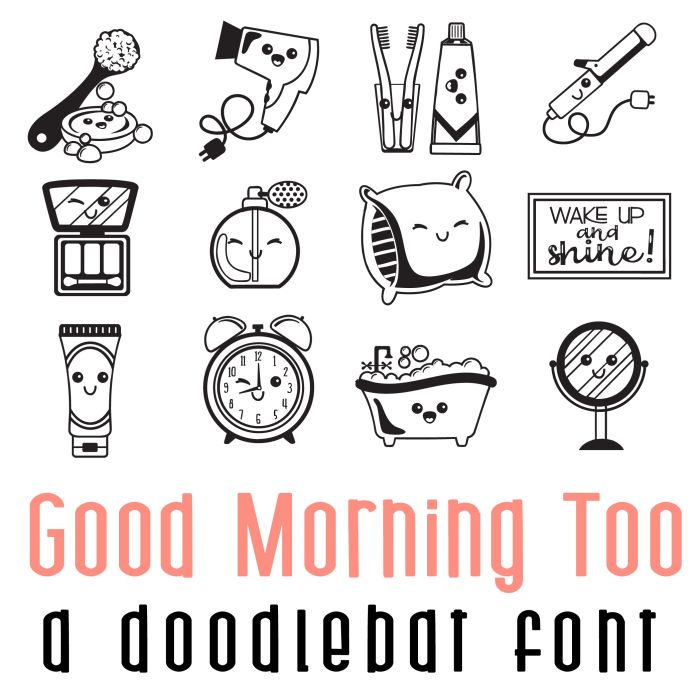
This fun doodlebat font features 26 kawaii style getting ready for the day items perfect for cards, crafts, gifts, planner stickers, scrap book pages, classrooms and more!